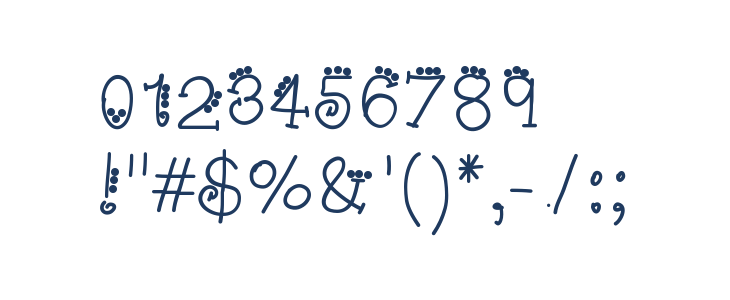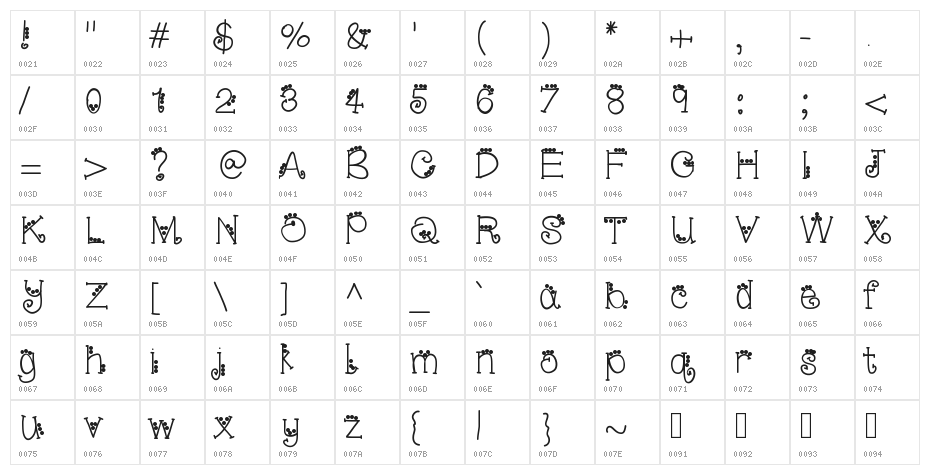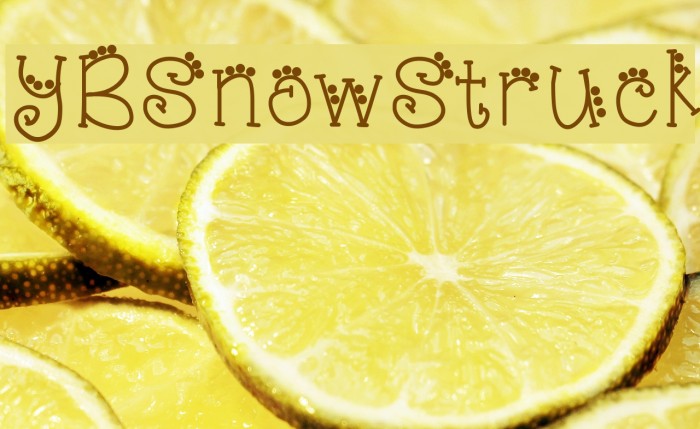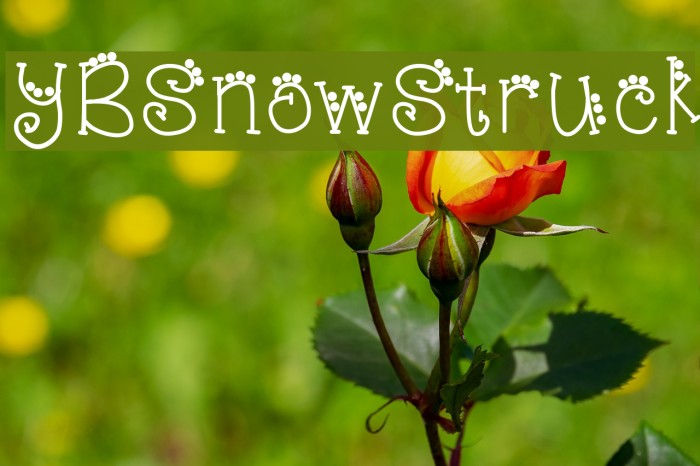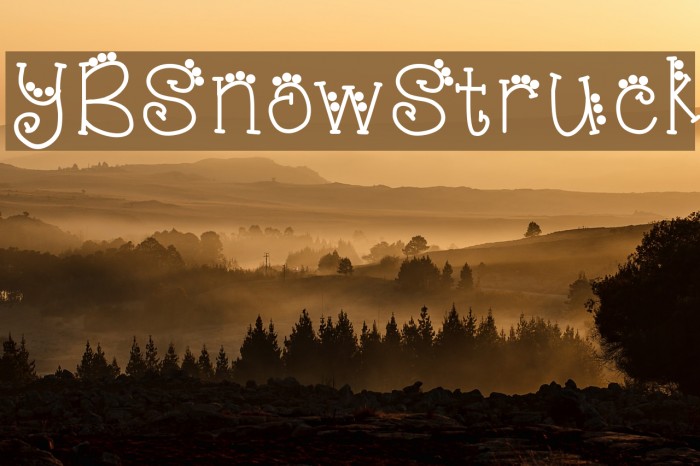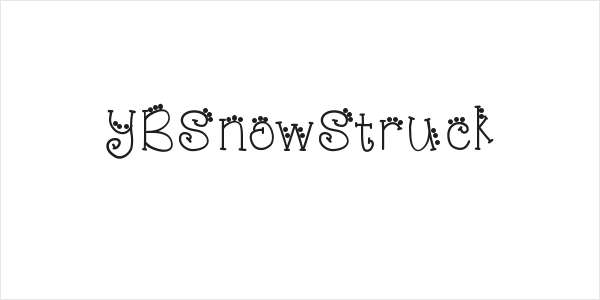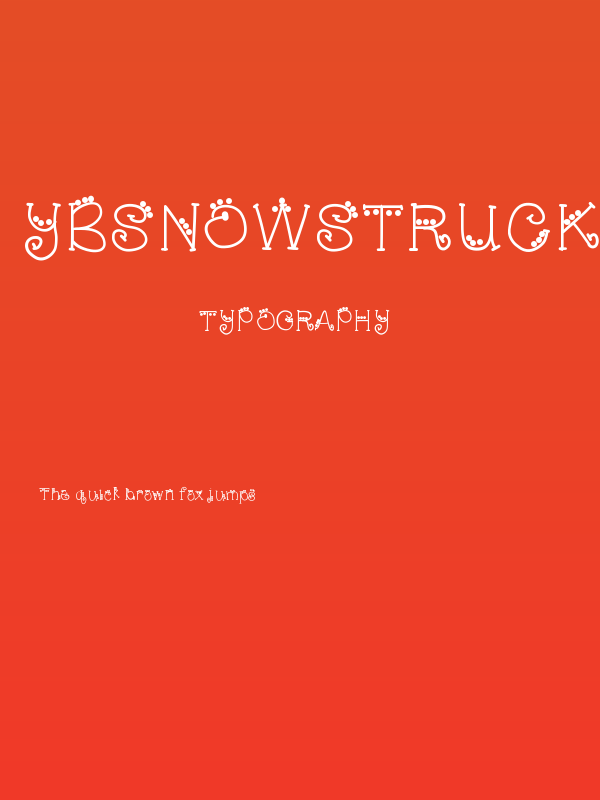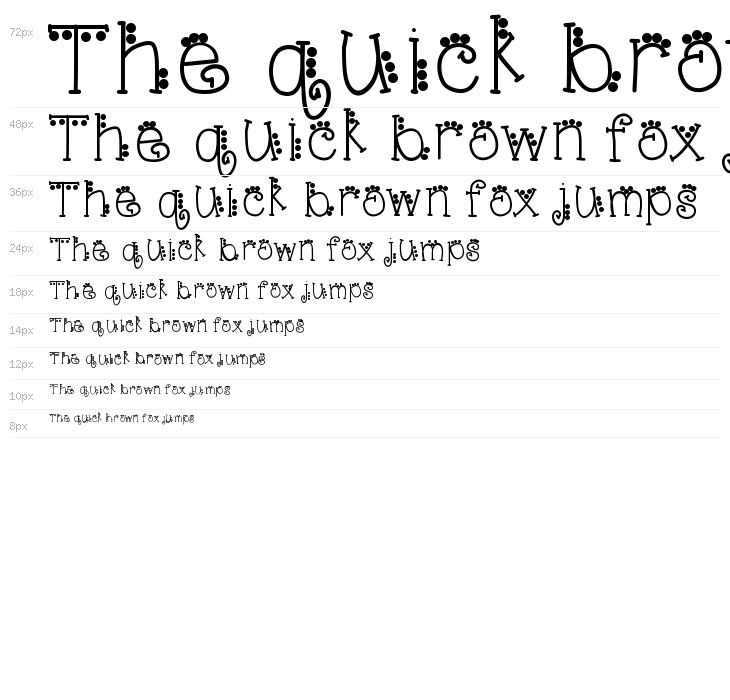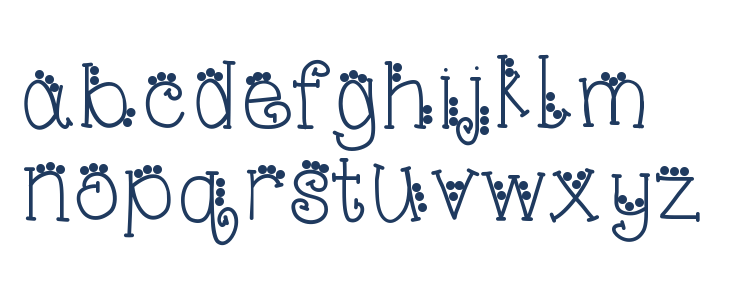
YBSnowStruck Font
YBSnowStruck Description
This playful and whimsical font features decorative elements that resemble snowflakes or paw prints adorning each character. The letters are primarily uppercase and lowercase with a consistent, rounded shape that adds a friendly and approachable feel. The numbers and special characters maintain the same decorative style, ensuring uniformity across all glyphs. The font's unique embellishments make it stand out, perfect for projects that require a touch of fun and creativity. Its design is both eye-catching and charming, making it suitable for a variety of applications.